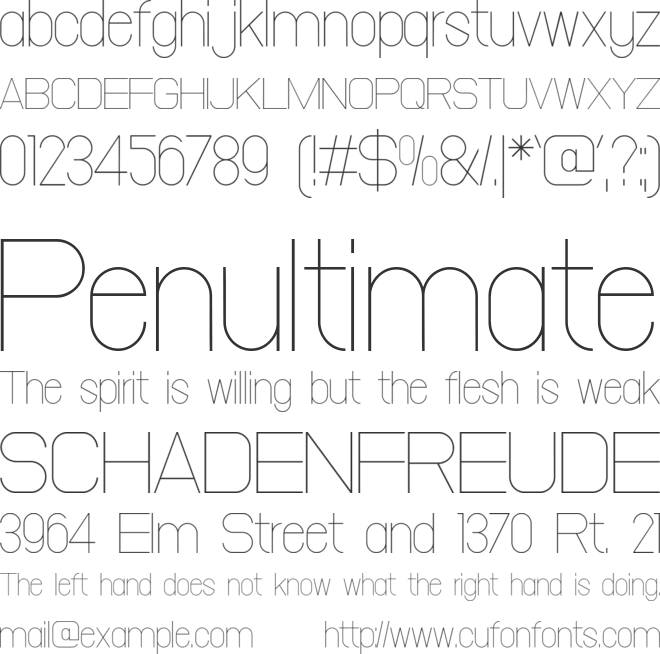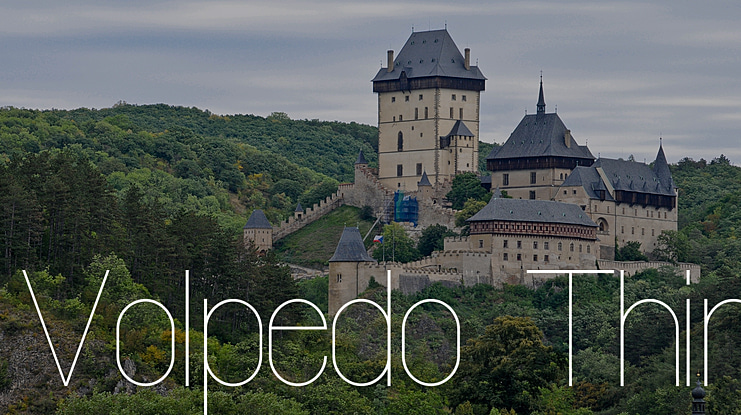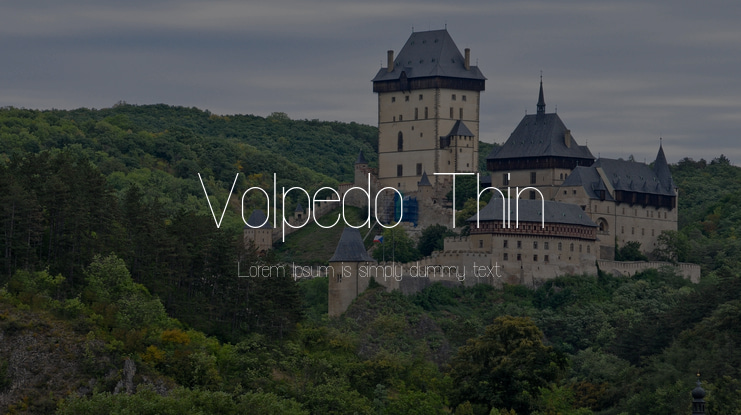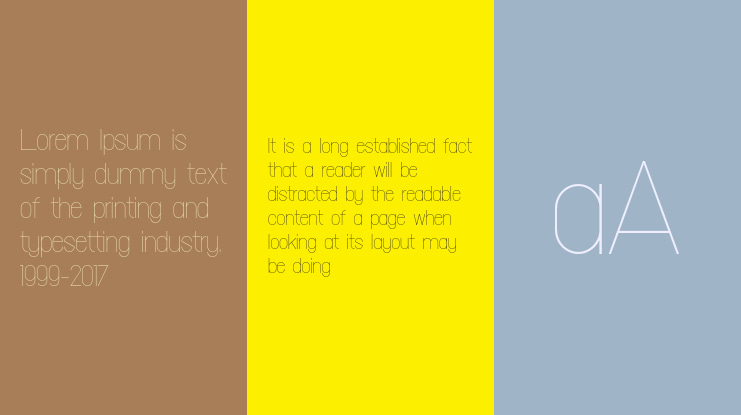
Volpedo Thin Font Family
P.A.Vannucci
From one of the protagonists of Italian divisionism, the futurist art of Giuseppe Pellizza in a fine font, available in 12 True Type formats (Thin, UltraLight, Light, Book, Medium and Bold-Italic).
Da uno dei protagonisti del divisionismo italiano, l’arte futurista di Giuseppe Pellizza in un font pregiato, disponibile in 12 formati True Type (Thin, UltraLight, Light, Book, Medium e Bold-Italic).